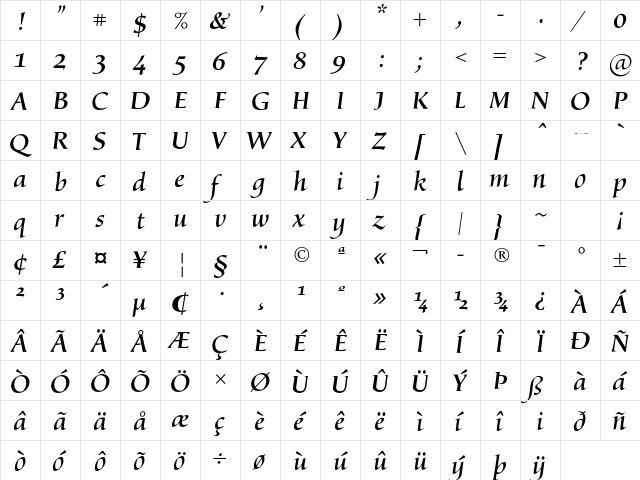
Byngve LT Std Bold Italic Font Preview
Rendered live in your browserByngve LT Std Bold Italic Font Details
| Foundry | Linotype GmbH |
| Designer | Bo Berndal |
Design Context for Byngve LT Std Typeface
Byngve LT Std takes a measured approach to typography — its balanced proportions and neutral character make it a reliable workhorse for both digital and print work. Its italic angle brings a sense of urgency and motion to the letterforms. The heavy weight commands attention and anchors typographic hierarchies.
Pro Tip: Try Byngve LT Std for annotation and caption copy alongside an upright companion — the contrast in angle creates a dynamic but ordered typographic system.